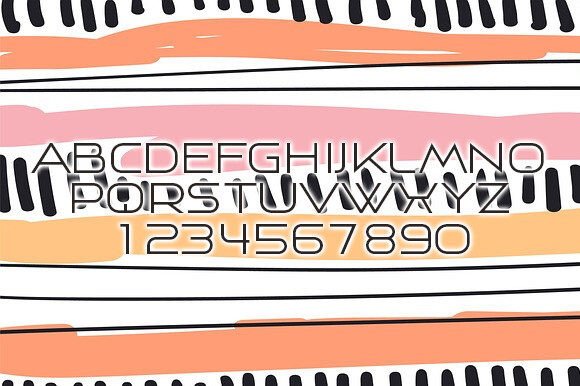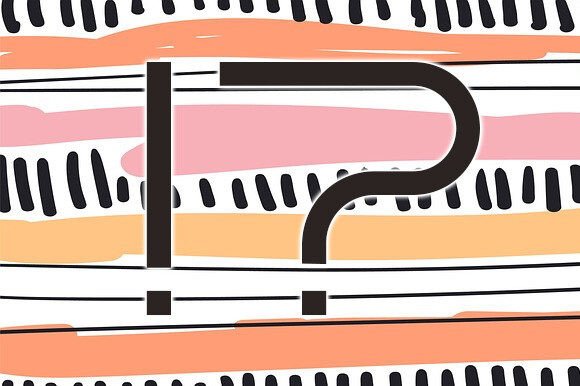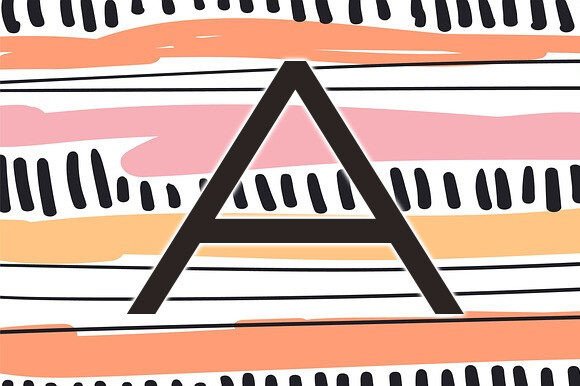
Introduction to Ksana Font
Ksana is an awsome sans serif font that will look stunning on any of your designs.
Use this font on posters, flyers and t-shirts .
Key Features of Ksana Font
Why Choose Ksana Font?
Ksana Font offers exceptional quality and versatility, making it a valuable addition to your design toolkit. Whether you’re creating for personal projects or commercial use, Ksana Font delivers professional results.